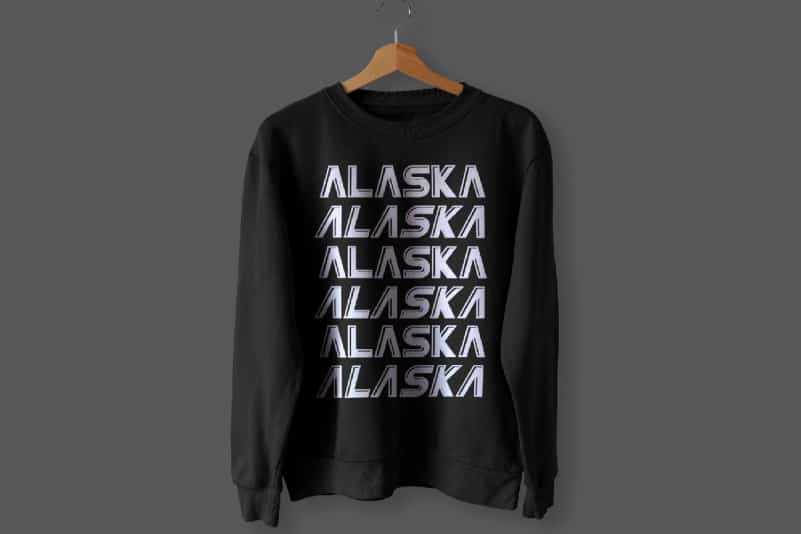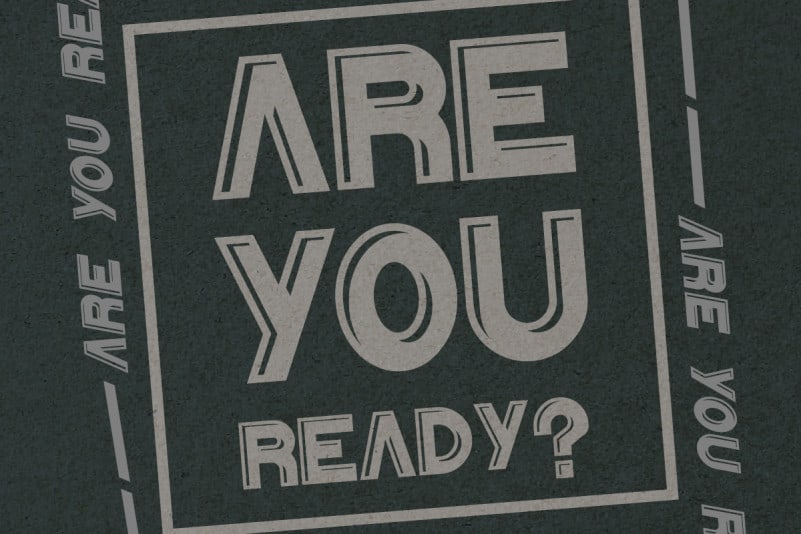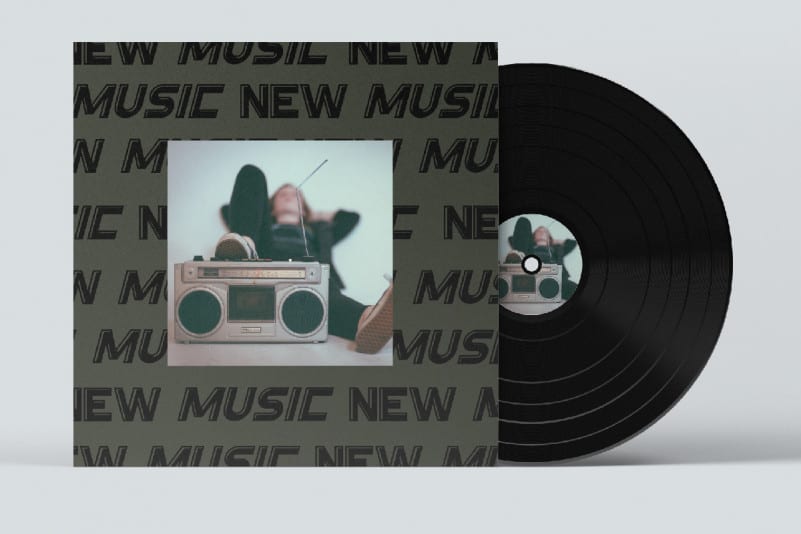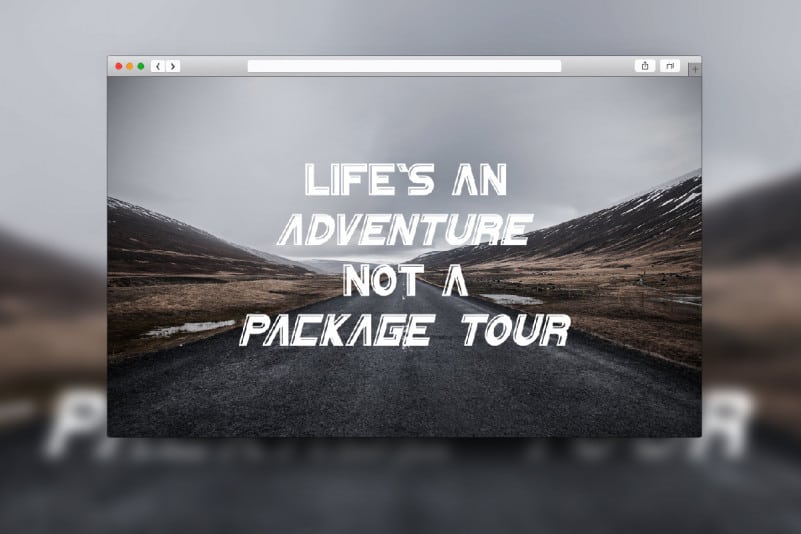
HanBold Display Font
HanBold Display Font is remotely made by RaisProject team in Indonesia. The font was handcrafted for any your special projects including : headlines, promotion, events, branding, advertising, magazine, signage, invitation, stationery, social media posts, label, or and any projects that need unique strong style. The industries for this font is Startup, Automotive, Apps, Cosmetic, Beauty, Technology, Game, Magazine, Music, Sport etc
HanBold Display Font includes full set of gorgeous uppercase and lowercase letters ,numerals and Multi languages characters. In total, HanBold has seven different styles : Reguler, Italic, Line, Line italic, Light, Light italic and Light line